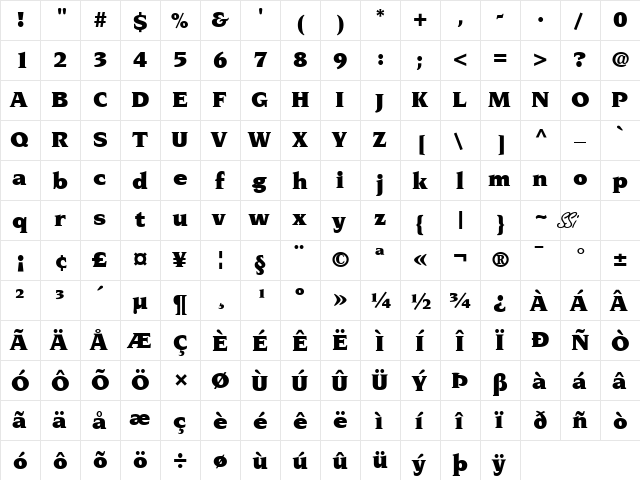
Trident Black SSi Black
Design Context for Trident Black SSi Typeface
Trident Black SSi is a composed and adaptable typeface that performs quietly and consistently across a wide range of design contexts.